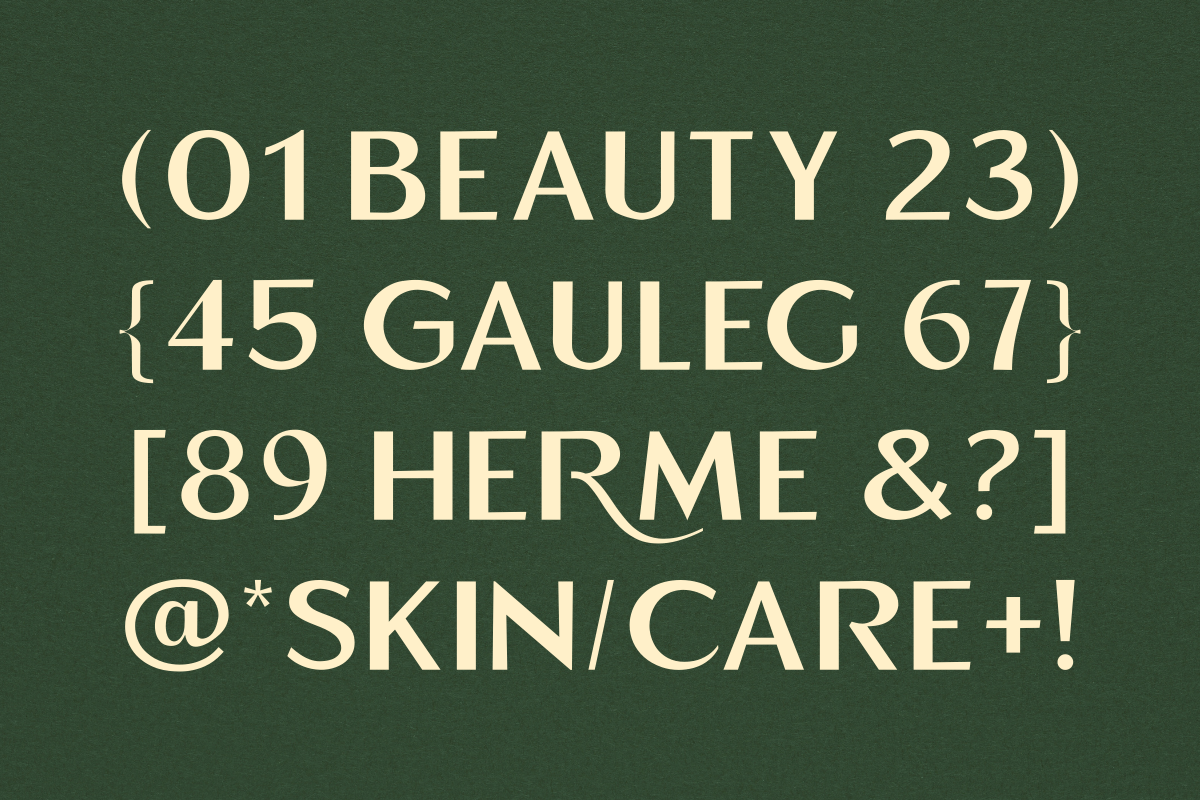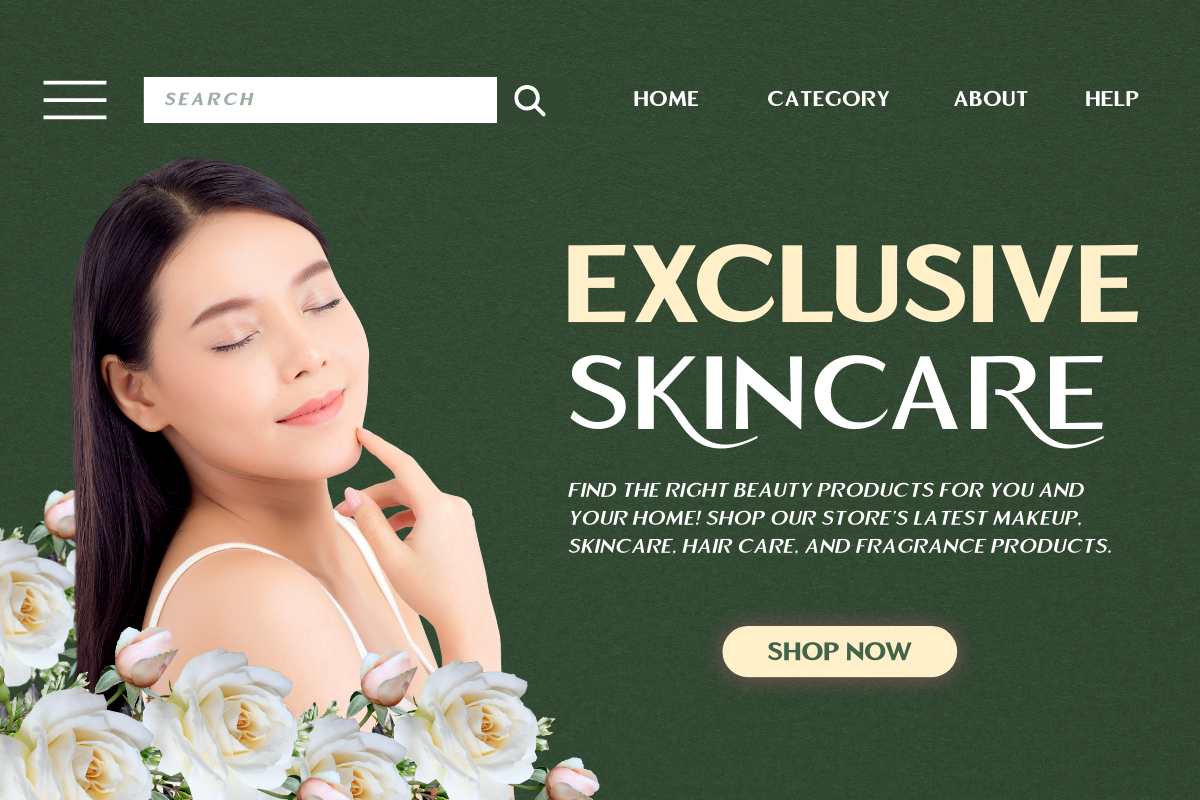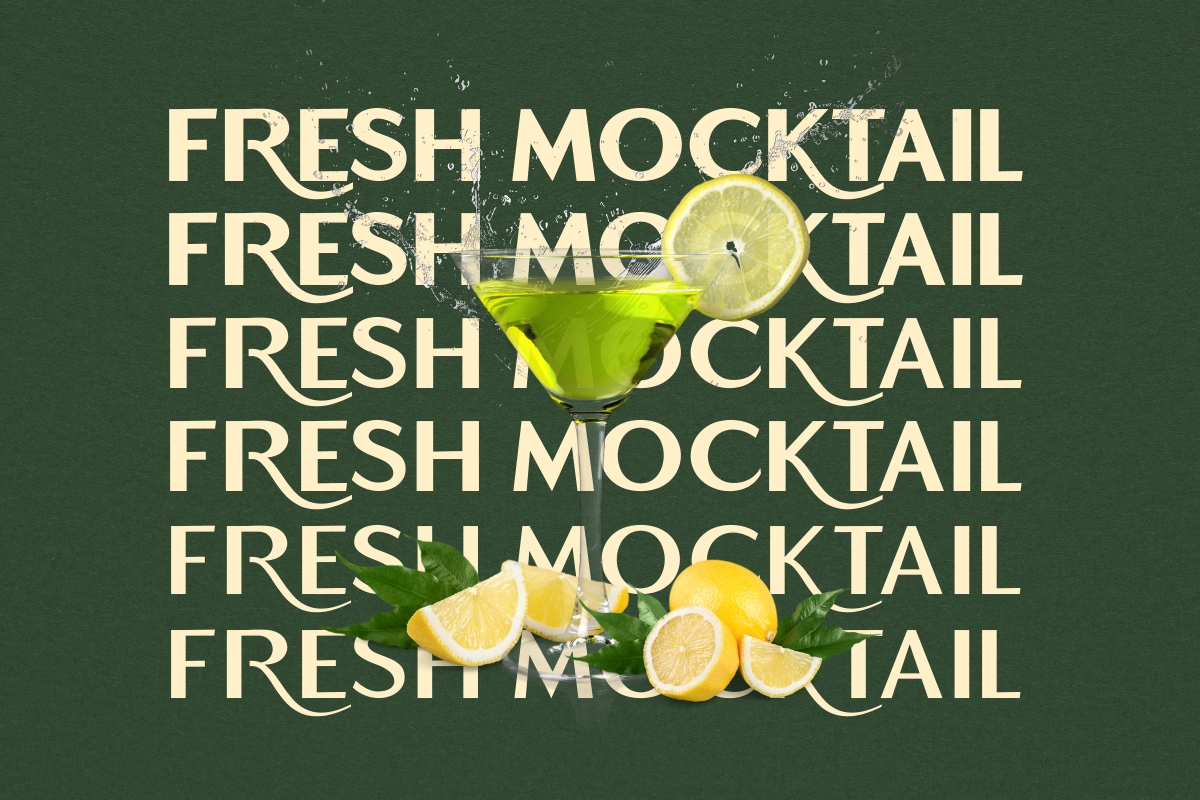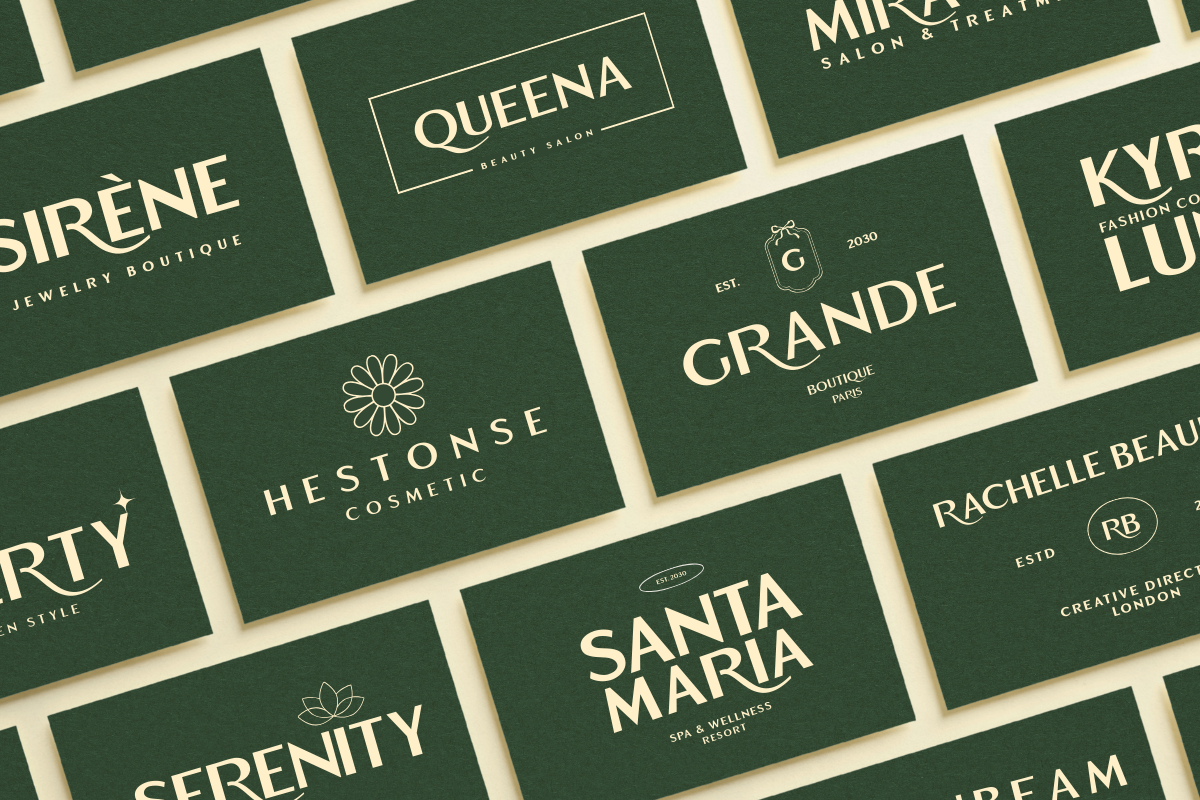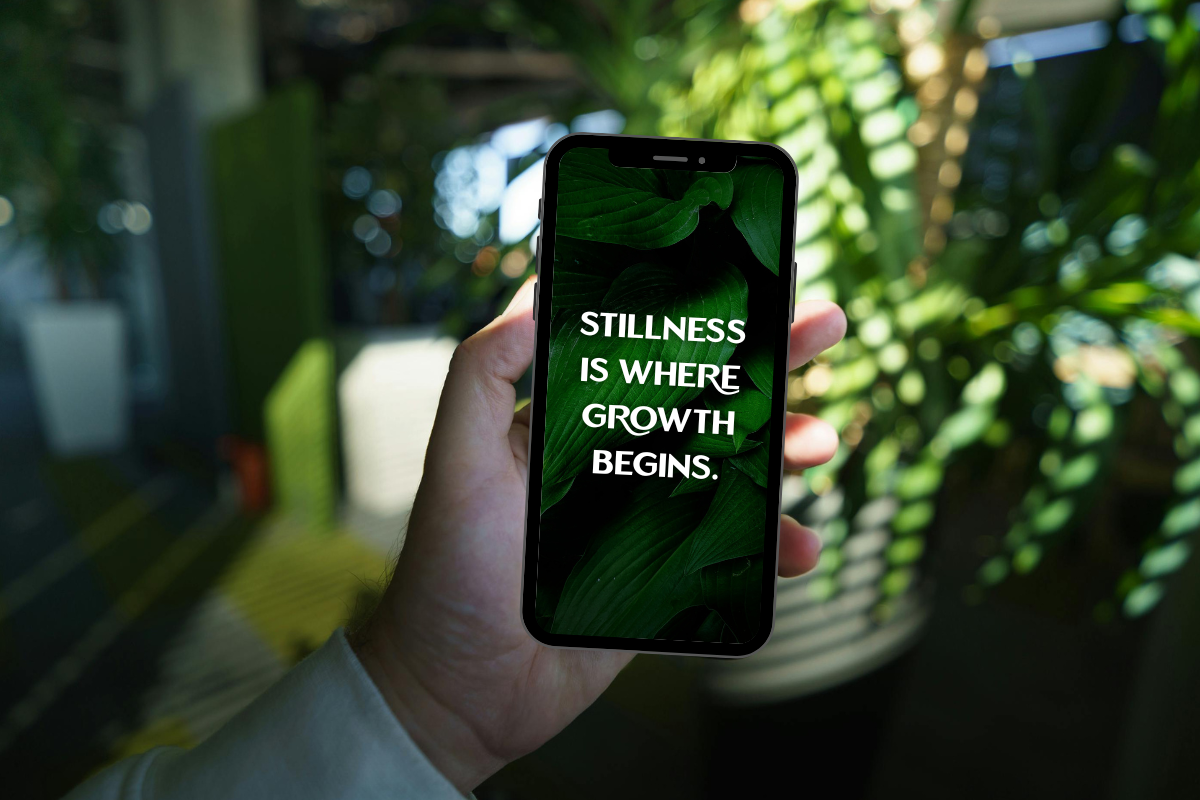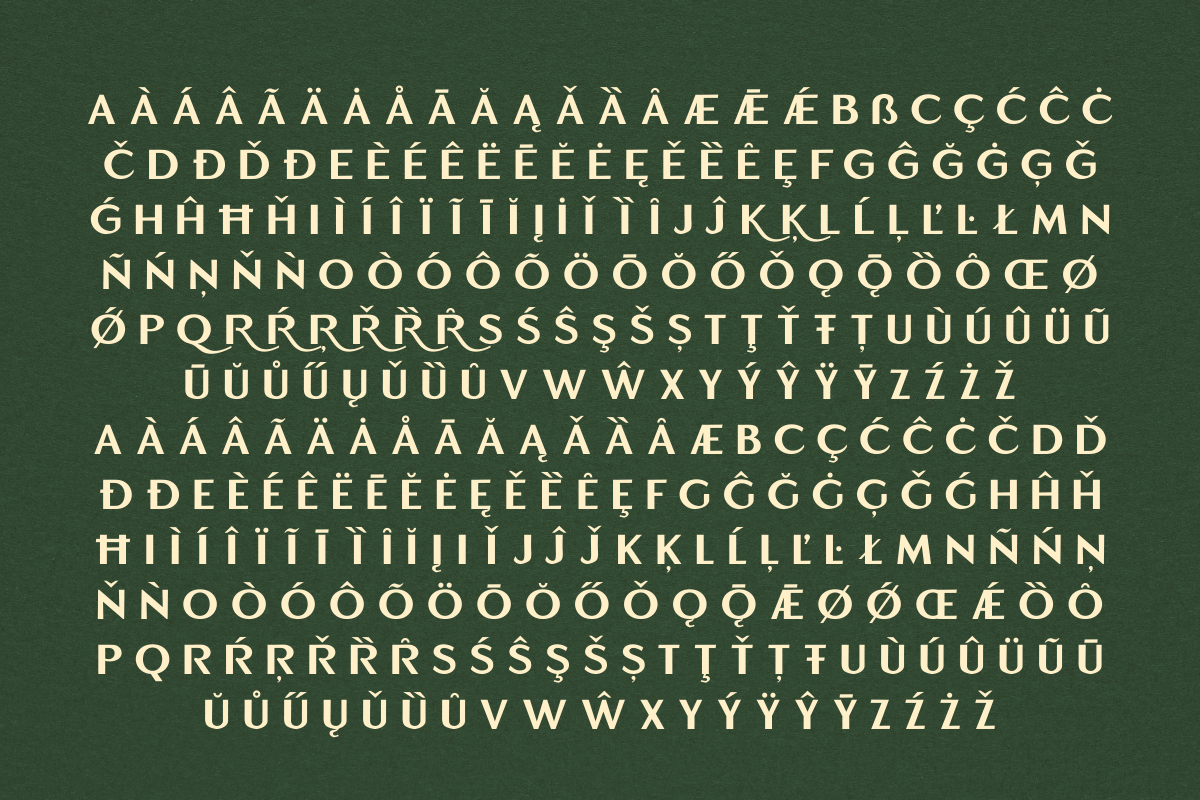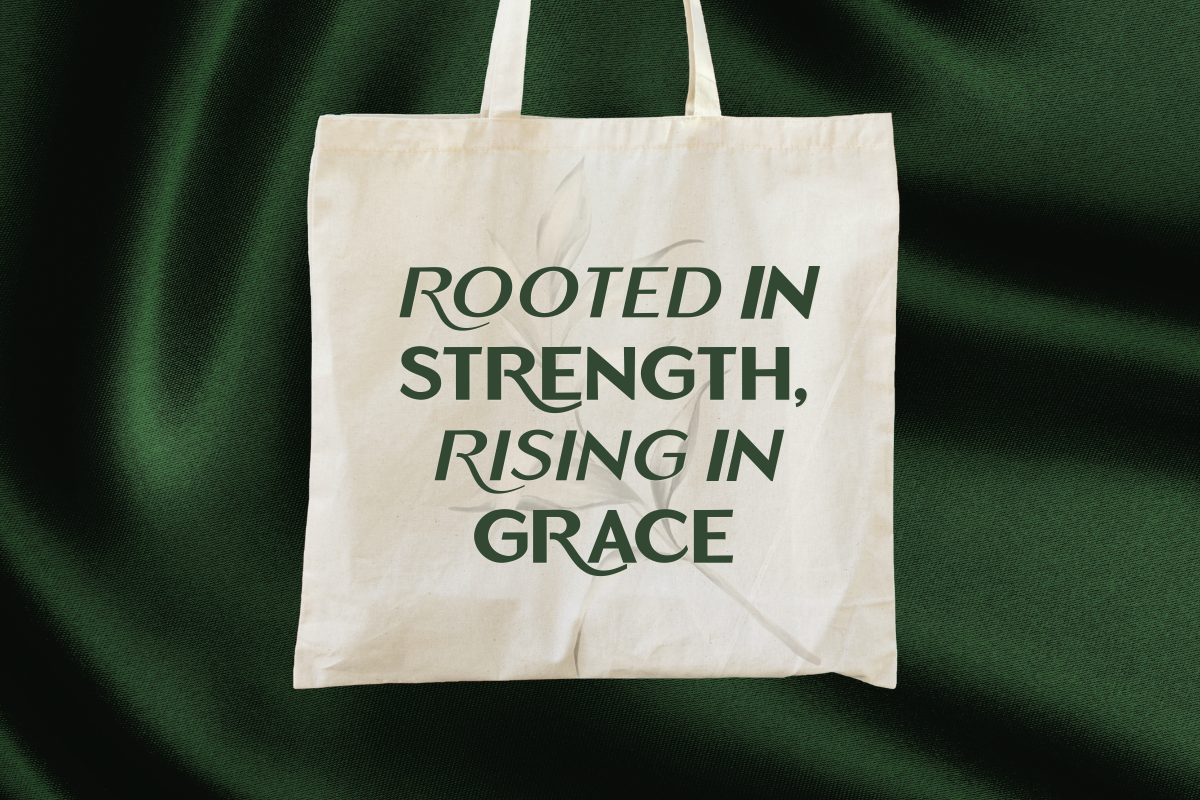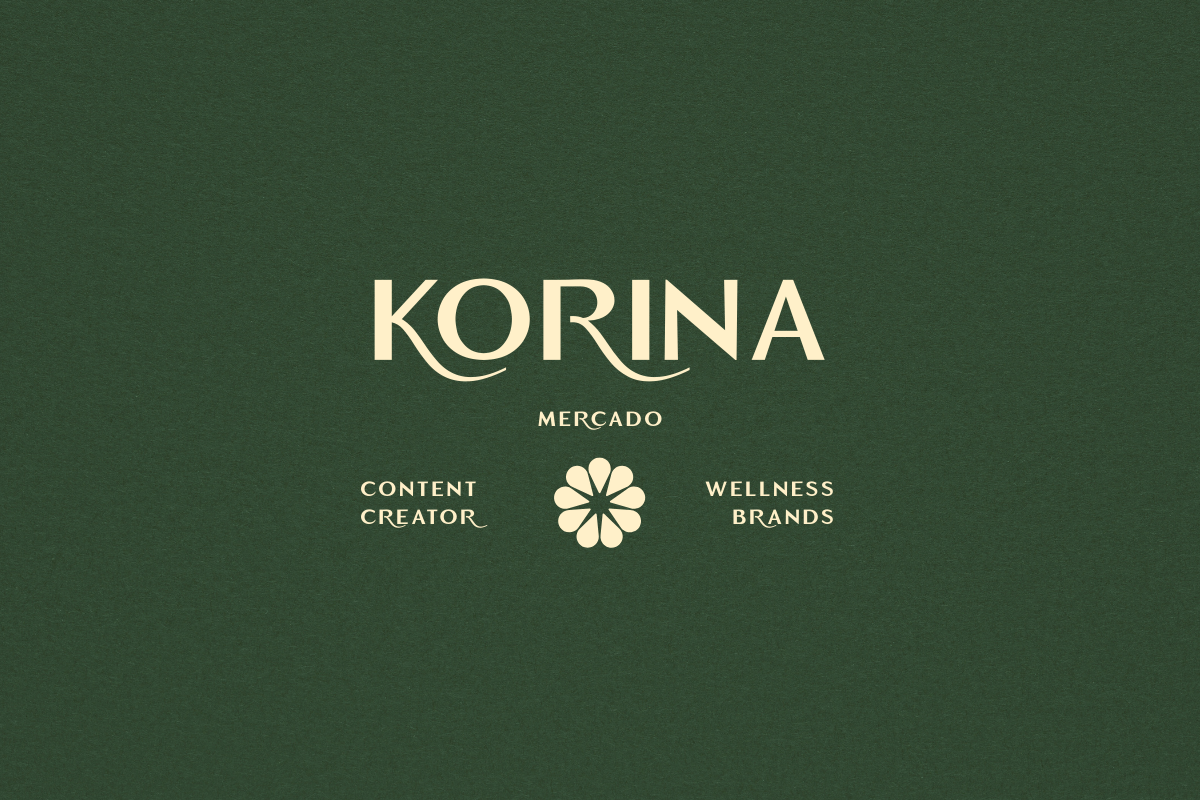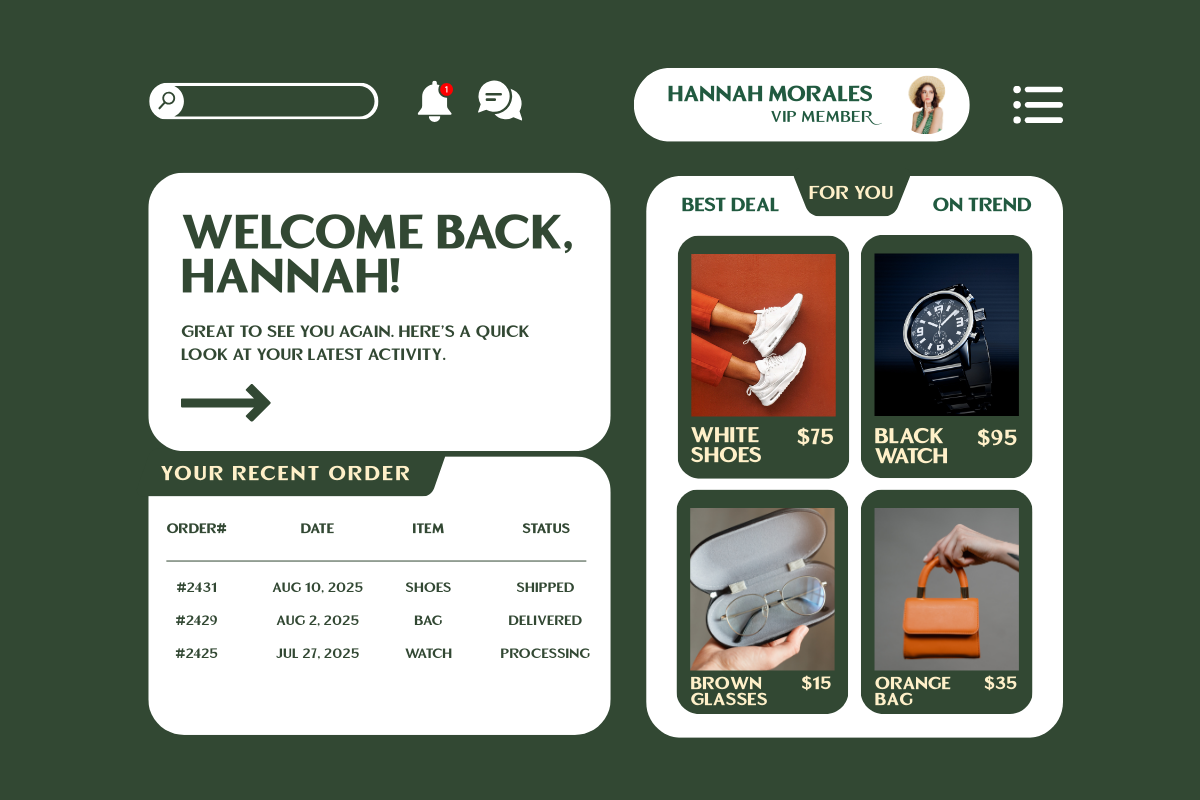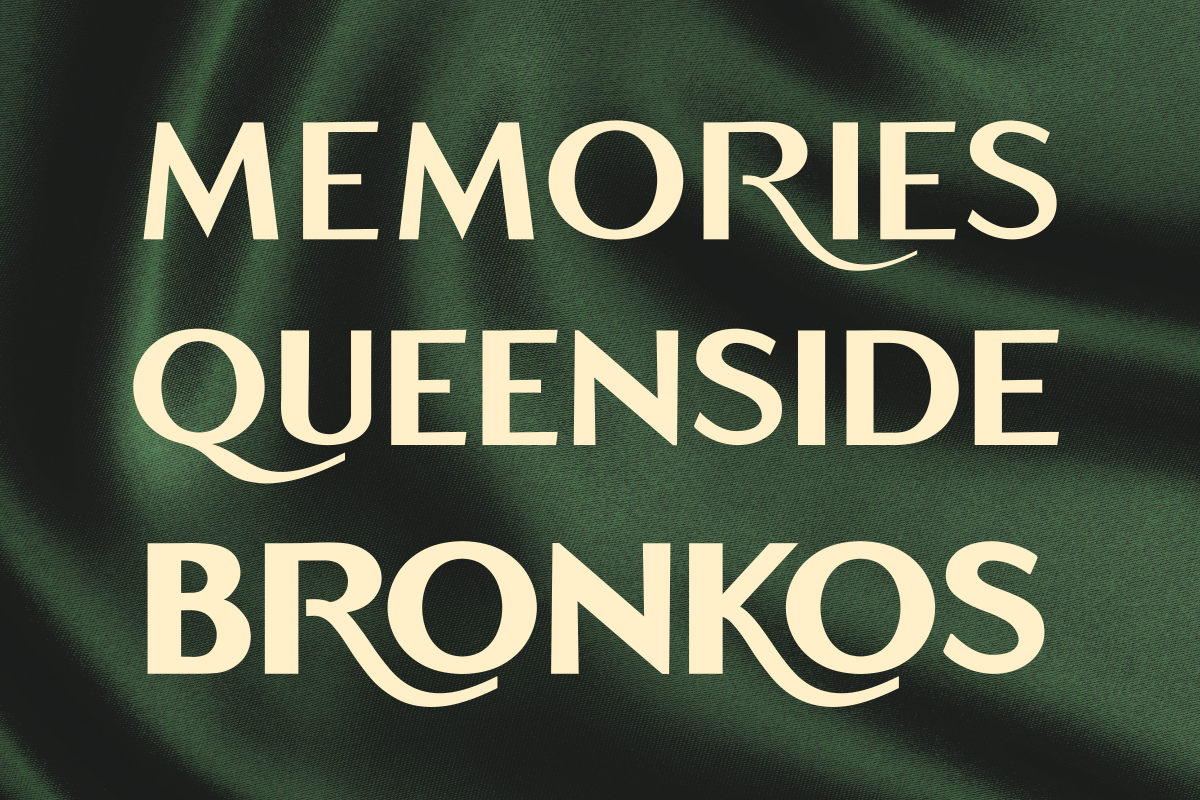
Emerald Crown - Stylish Sans
Emerald Crown – Stylish Sans Serif Font is a modern all-caps sans serif typeface designed to deliver a bold, elegant, and premium visual identity. Built with strong proportions and clean geometry, Emerald Crown is crafted for designers who seek clarity, sophistication, and versatility in one font family.
One of its distinctive features is the difference between uppercase and lowercase characters, allowing designers to mix both styles creatively to achieve unique typographic compositions. This approach adds visual rhythm and enhances hierarchy without sacrificing readability.
Emerald Crown comes with six carefully balanced styles:
Thin
Bold
Thin Italic
Italic
Bold Italic
This complete weight range provides flexibility for headlines, branding systems, editorial layouts, posters, logos, packaging, fashion designs, and premium digital interfaces.
With its sharp structure and refined aesthetic, Emerald Crown performs exceptionally well in both minimal and high-impact designs, making it ideal for modern branding and luxury-oriented projects.
🔹 Key Features
All Caps Sans Serif Font
Distinct Uppercase & Lowercase Character Styles
6 Font Styles (Thin to Bold + Italics)
Clean, Modern, and Stylish Design
Perfect for Branding, Logo, Editorial, Poster & Web
Professional & Premium Look
🔹 Usage & Applications
Emerald Crown is perfect for:
Branding & Visual Identity
Editorial & Magazine Layouts
Fashion & Luxury Branding
Posters & Headlines
Web & UI Design